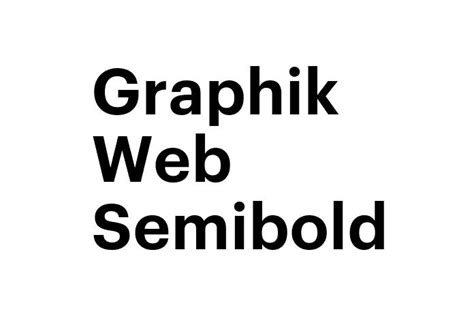
Graphik Web Font. Web graphik font family (includes total 36 typeface) graphik bold graphik extrabold graphik heavy graphik ultra graphik italic graphik two italic graphik four italic graphik eight italic graphik hair italic graphik thin. Web websites using the typeface graphik with personal recommendations for similar web fonts, suggested font pairings and the closest free alternative.
Web this is a convenient and modern grotesk sans serif features low contrast details to cover small text purposes. Web graphik font family (includes total 36 typeface) graphik bold graphik extrabold graphik heavy graphik ultra graphik italic graphik two italic graphik four italic graphik eight italic graphik hair italic graphik thin. Web graphik commercial type, christian schwartz, ilya ruderman desktop $480 web $480 app $600 thin 48px desktop $60 web $60 app $75 thin italic 48px desktop $60 web $60 app $75 extralight 48px desktop. Web websites using the typeface graphik with personal recommendations for similar web fonts, suggested font pairings and the closest free alternative. Web making the web more beautiful, fast, and open through great typography With a rational grid composed of nine weights in eight different widths, the.
Web this is a convenient and modern grotesk sans serif features low contrast details to cover small text purposes. Web graphik commercial type, christian schwartz, ilya ruderman desktop $480 web $480 app $600 thin 48px desktop $60 web $60 app $75 thin italic 48px desktop $60 web $60 app $75 extralight 48px desktop. Web websites using the typeface graphik with personal recommendations for similar web fonts, suggested font pairings and the closest free alternative. Web making the web more beautiful, fast, and open through great typography With a rational grid composed of nine weights in eight different widths, the. Web graphik font family (includes total 36 typeface) graphik bold graphik extrabold graphik heavy graphik ultra graphik italic graphik two italic graphik four italic graphik eight italic graphik hair italic graphik thin. Web this is a convenient and modern grotesk sans serif features low contrast details to cover small text purposes.